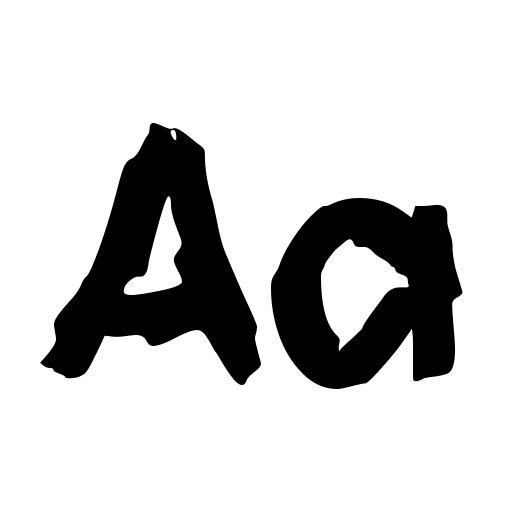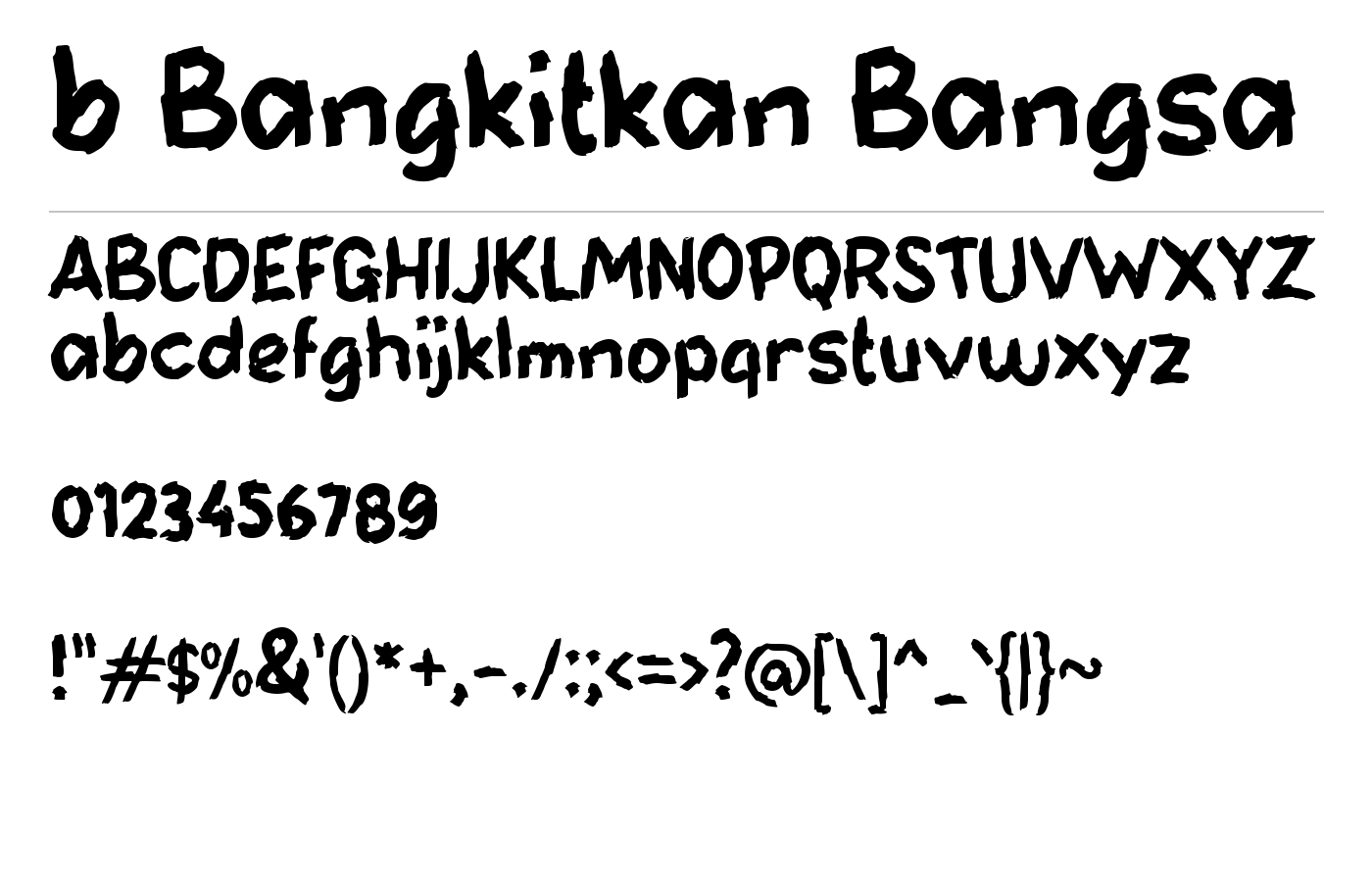
Bangkitkan Bangsa is a bold, playful handwritten sans serif font with a slightly rough, brush-stroke texture that gives it a lively and informal character. Its casual letterforms and uneven edges make it perfect for designs that want to convey energy, creativity, and approachability, especially in youth-oriented or artsy branding and headlines. This font works well in posters, logos, and social media where an expressive, handmade feel is desired.
b Bangkitkan Bangsa Font